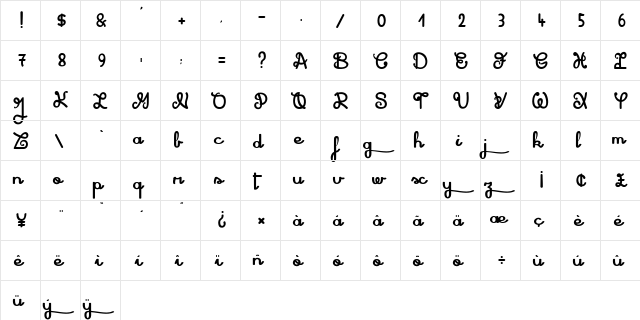
Shadow Boxing Regular
| Designer | dcoxy Medina Gregory |
Design Context for Shadow Boxing Typeface
Shadow Boxing is built around its visual character rather than neutral utility — its distinctive forms are designed to make an impression at display sizes.
Font Pairing: Pair with a clean neutral sans-serif for body copy to let Shadow Boxing's character lead without overwhelming the composition.
Pro Tip: Treat Shadow Boxing as the centrepiece of your typographic hierarchy. One strong heading set in a decorative face can carry an entire layout.